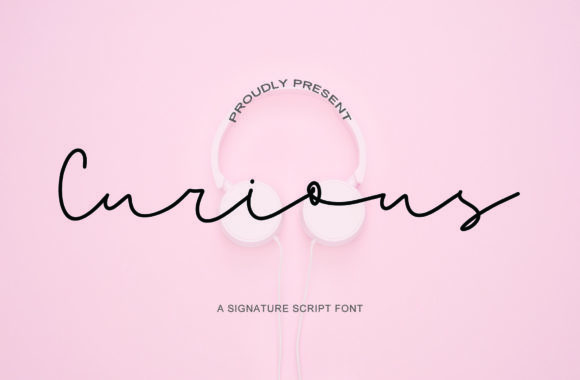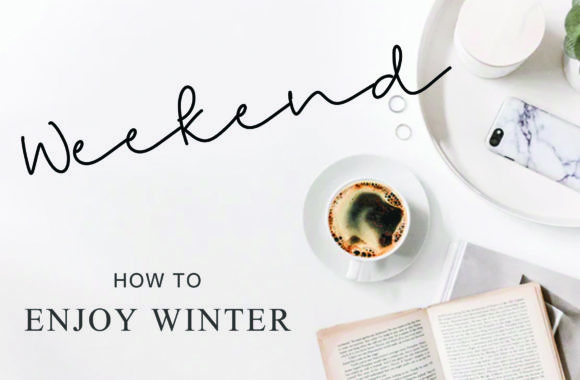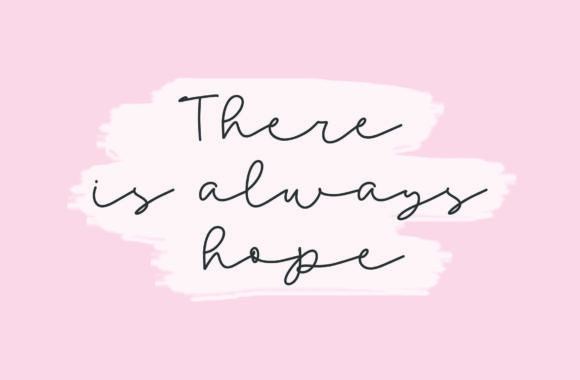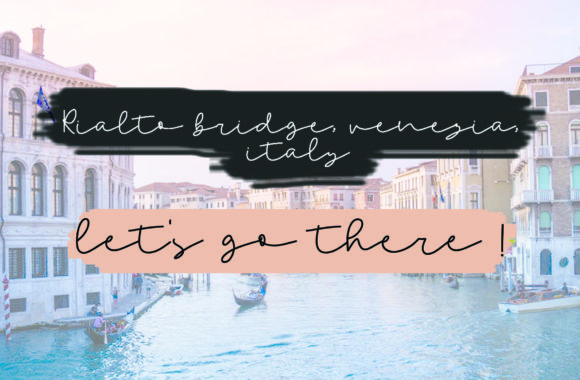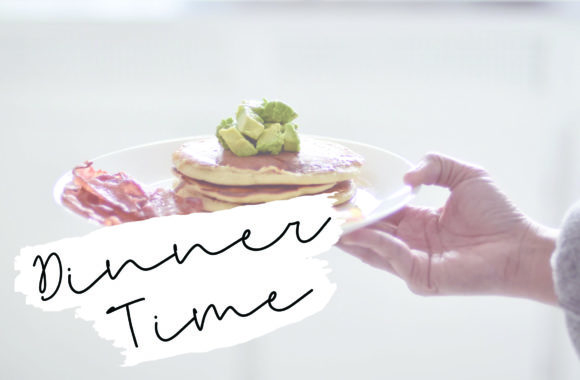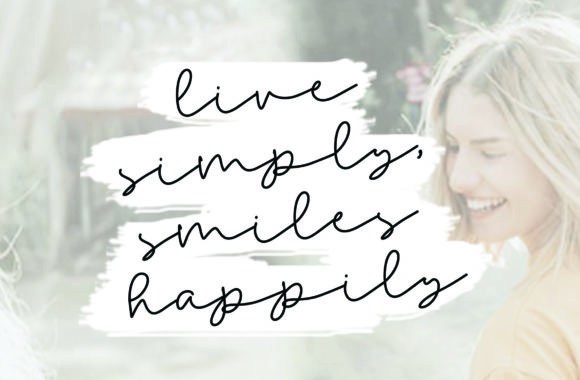
Curious Font
About Curious Font
Curious is a stylish and incredibly elegant script font. It looks stunning on wedding invitations, thank you cards, quotes, greeting cards, logos, business cards and every other design which needs a personalized touch.